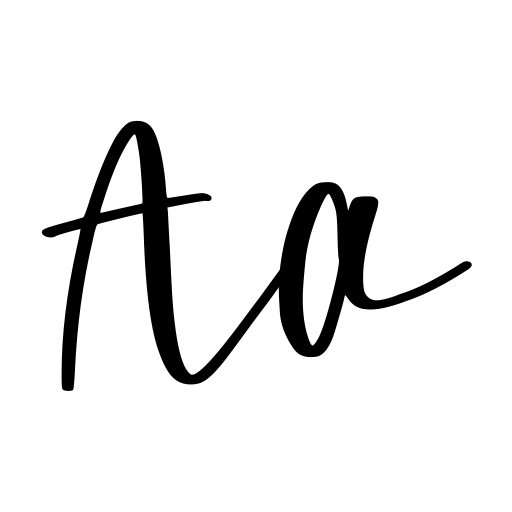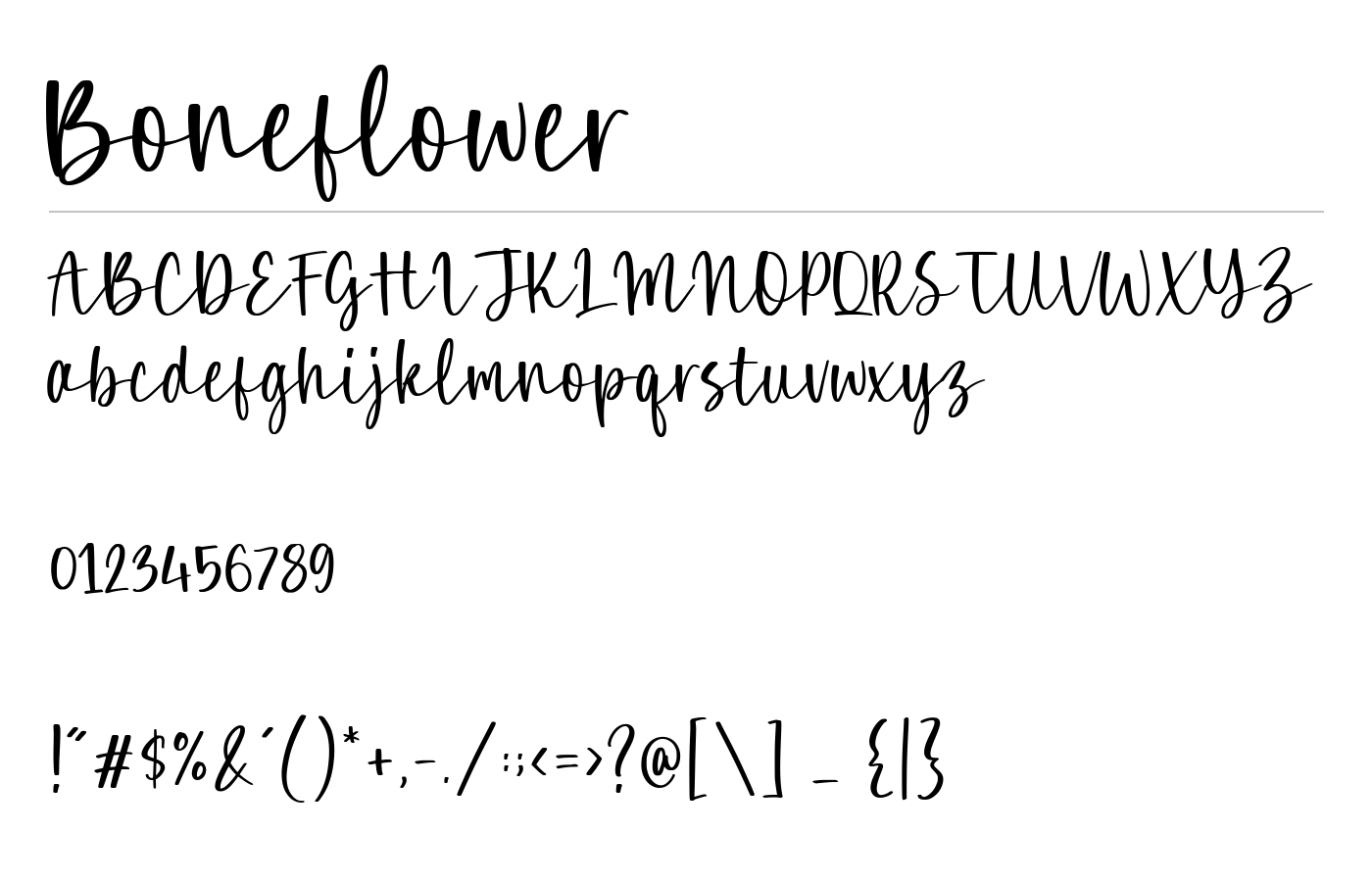
Boneflower is a playful and elegant handwritten script font with a smooth, flowing style that feels personal and inviting. Its tall, slightly narrow letterforms and delicate strokes create a modern, casual look perfect for creative branding, invitations, and lifestyle projects where a warm, friendly atmosphere is desired. This font works well for headlines, logos, and displays where a touch of charm and individuality is needed.
Boneflower Font
About Boneflower Font